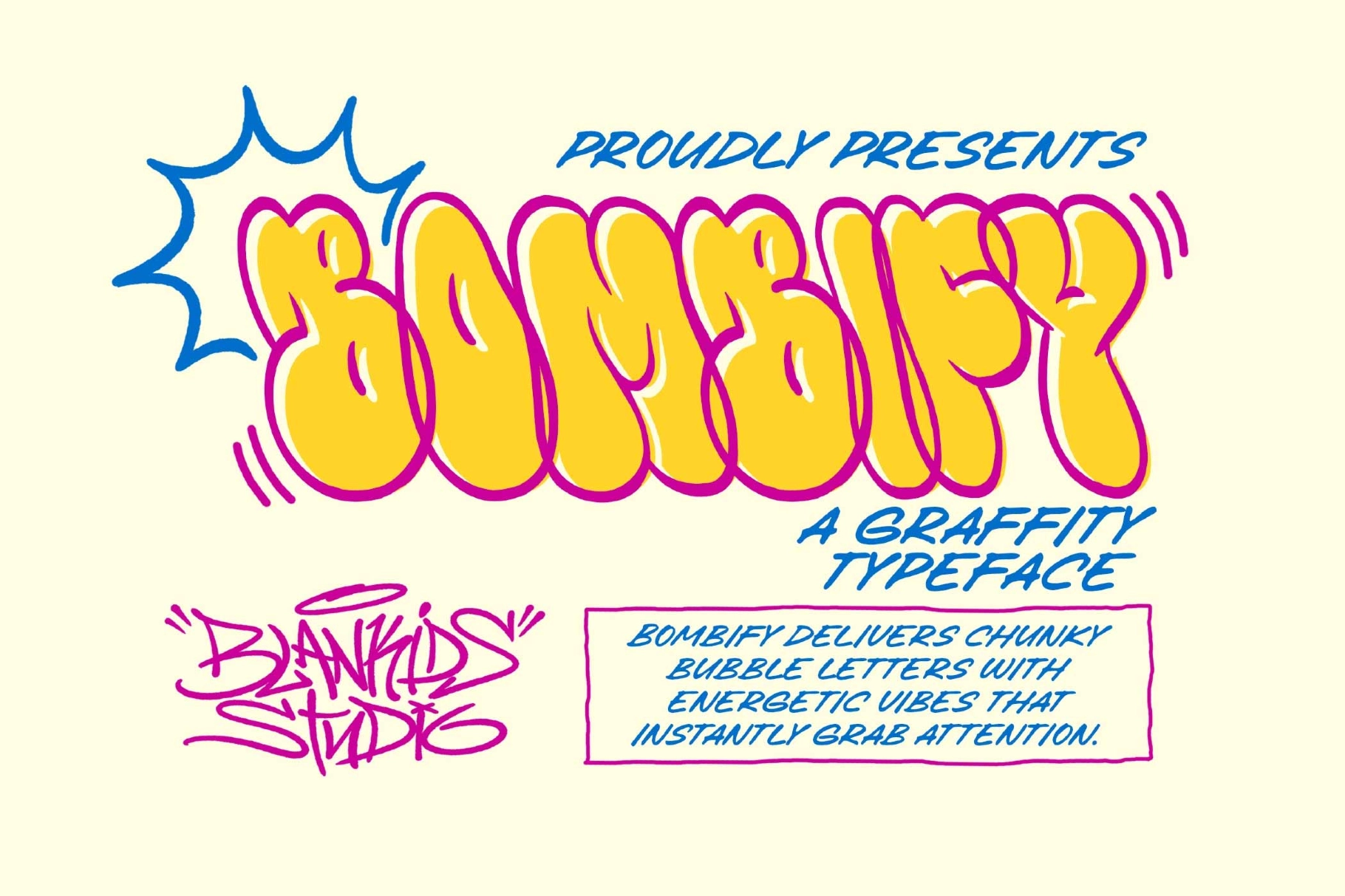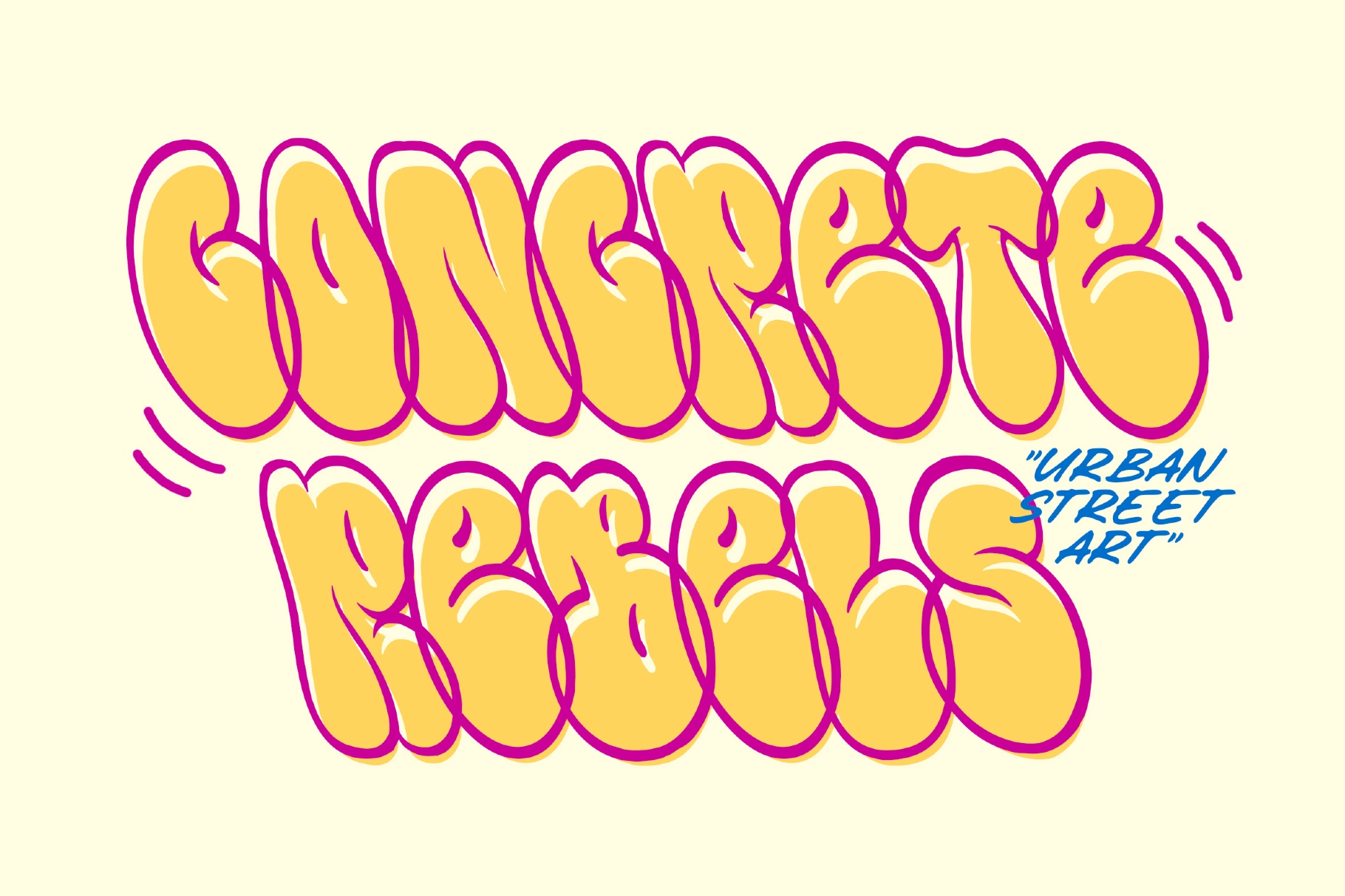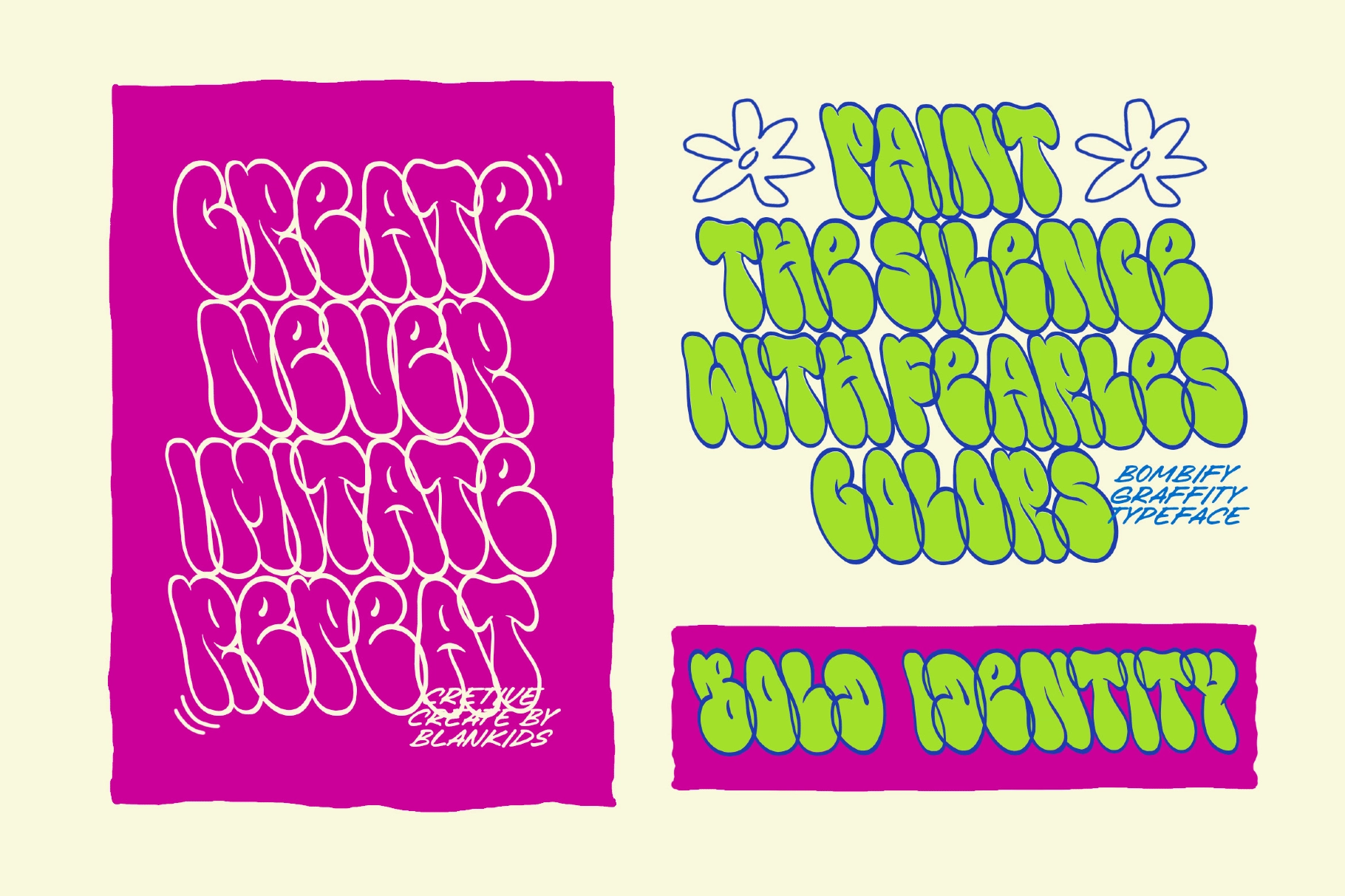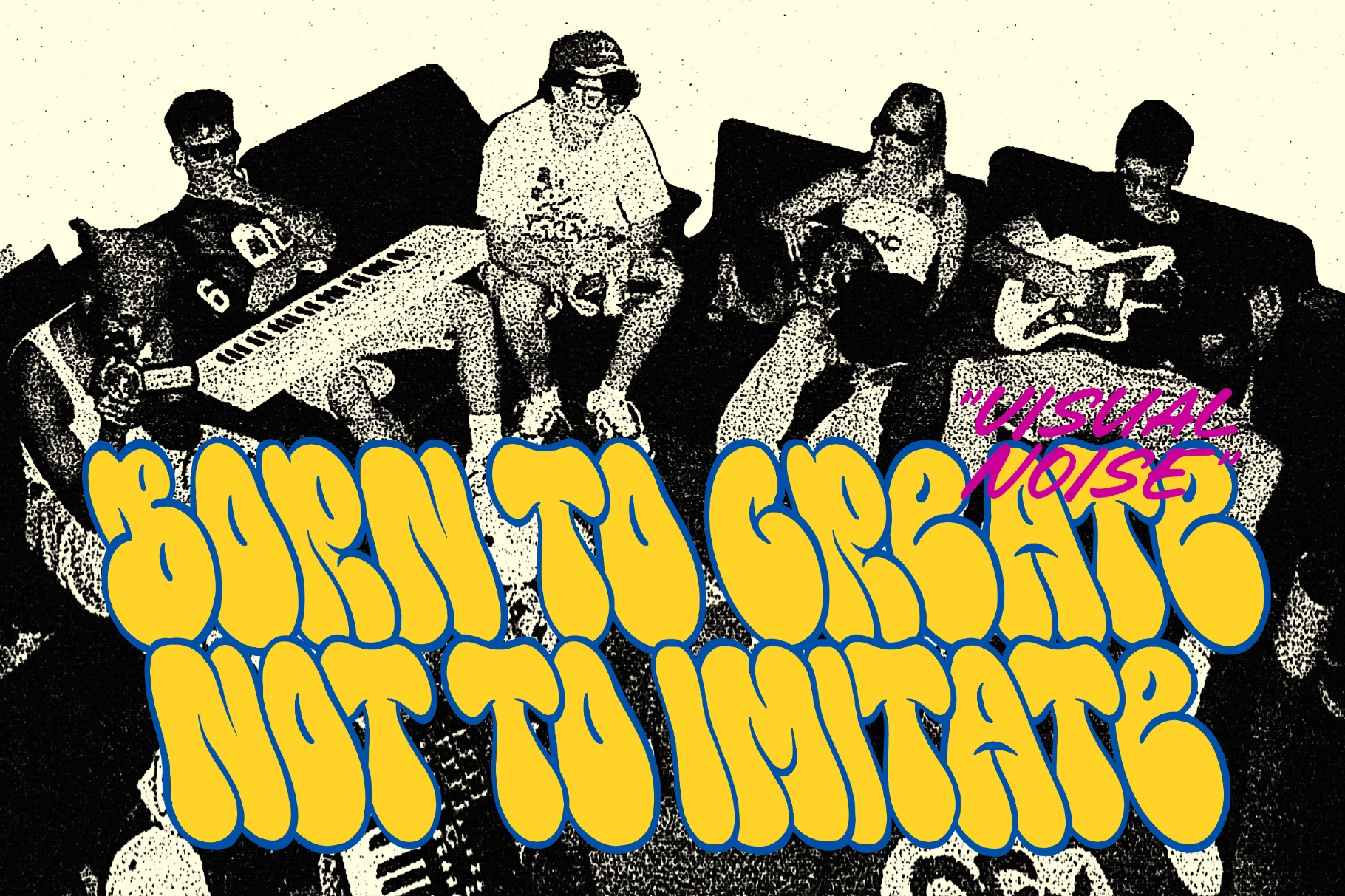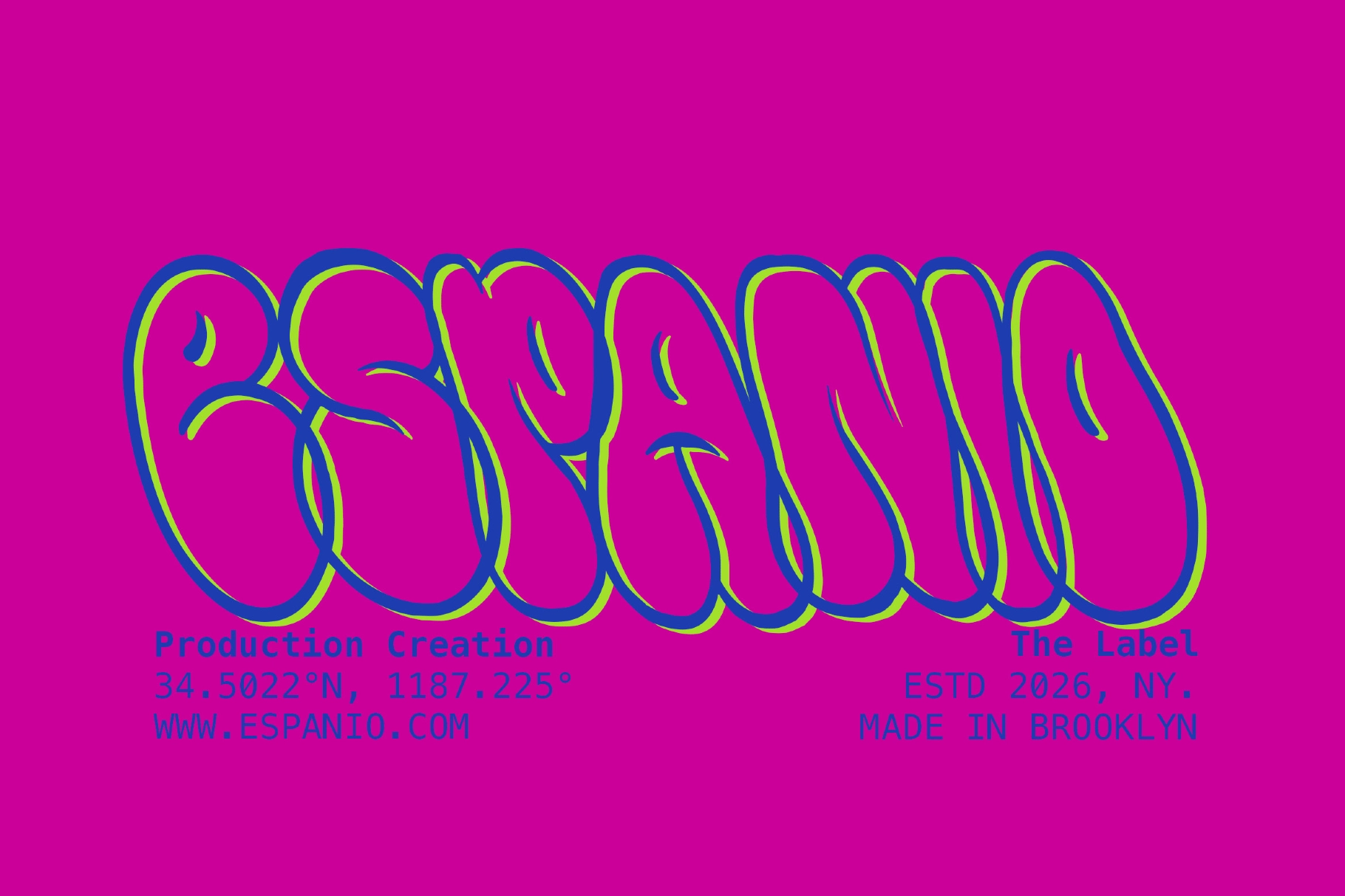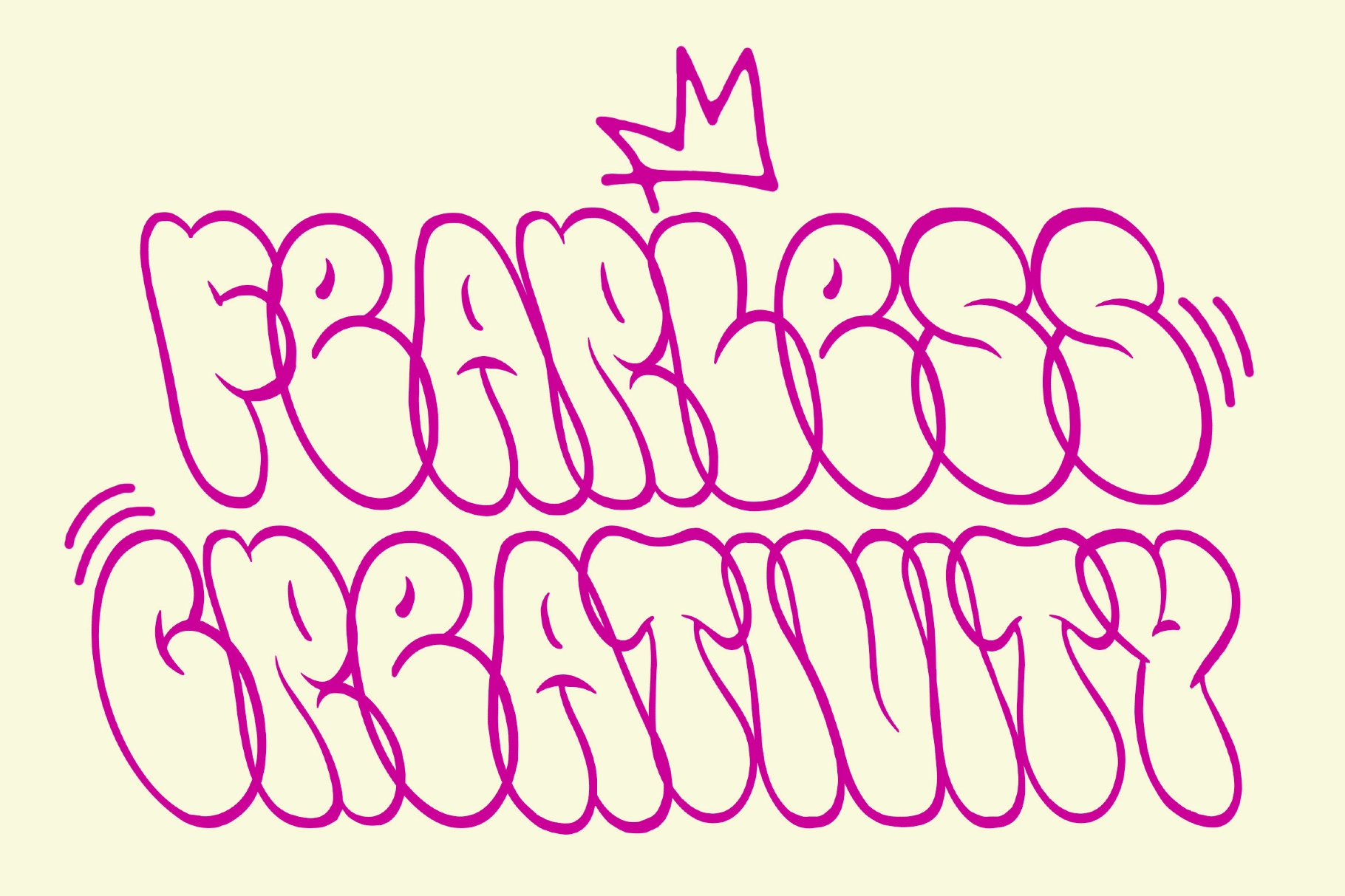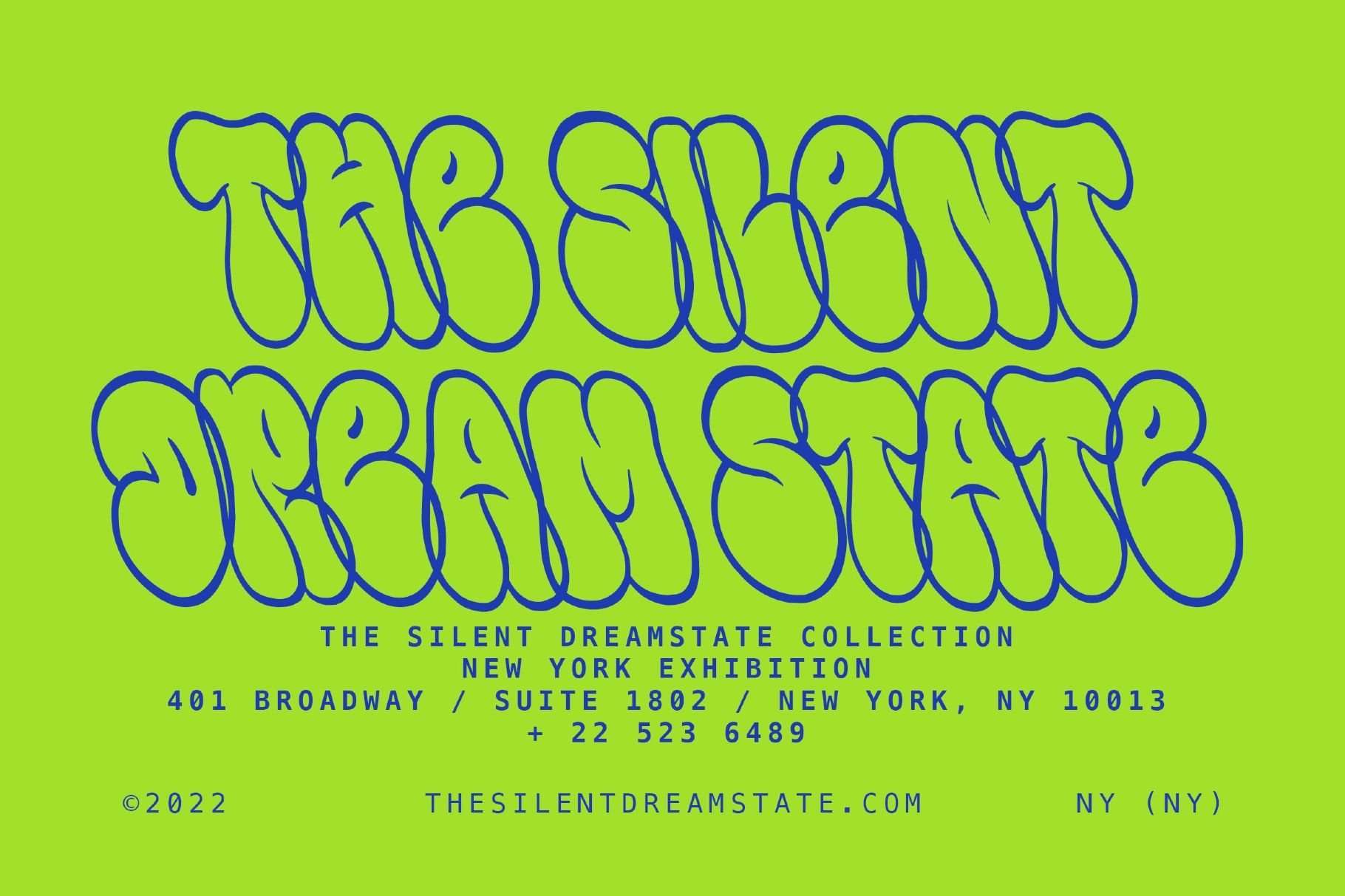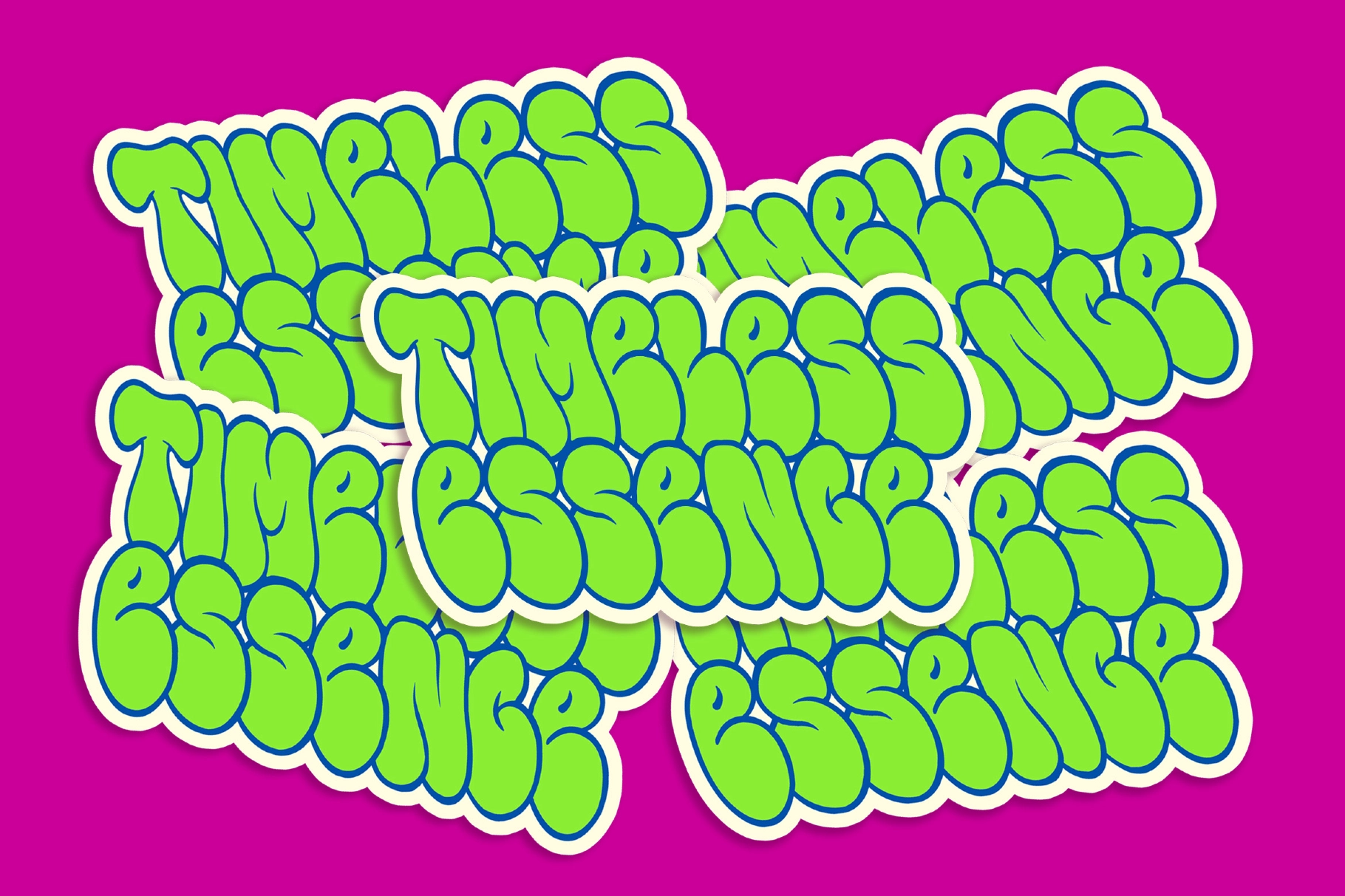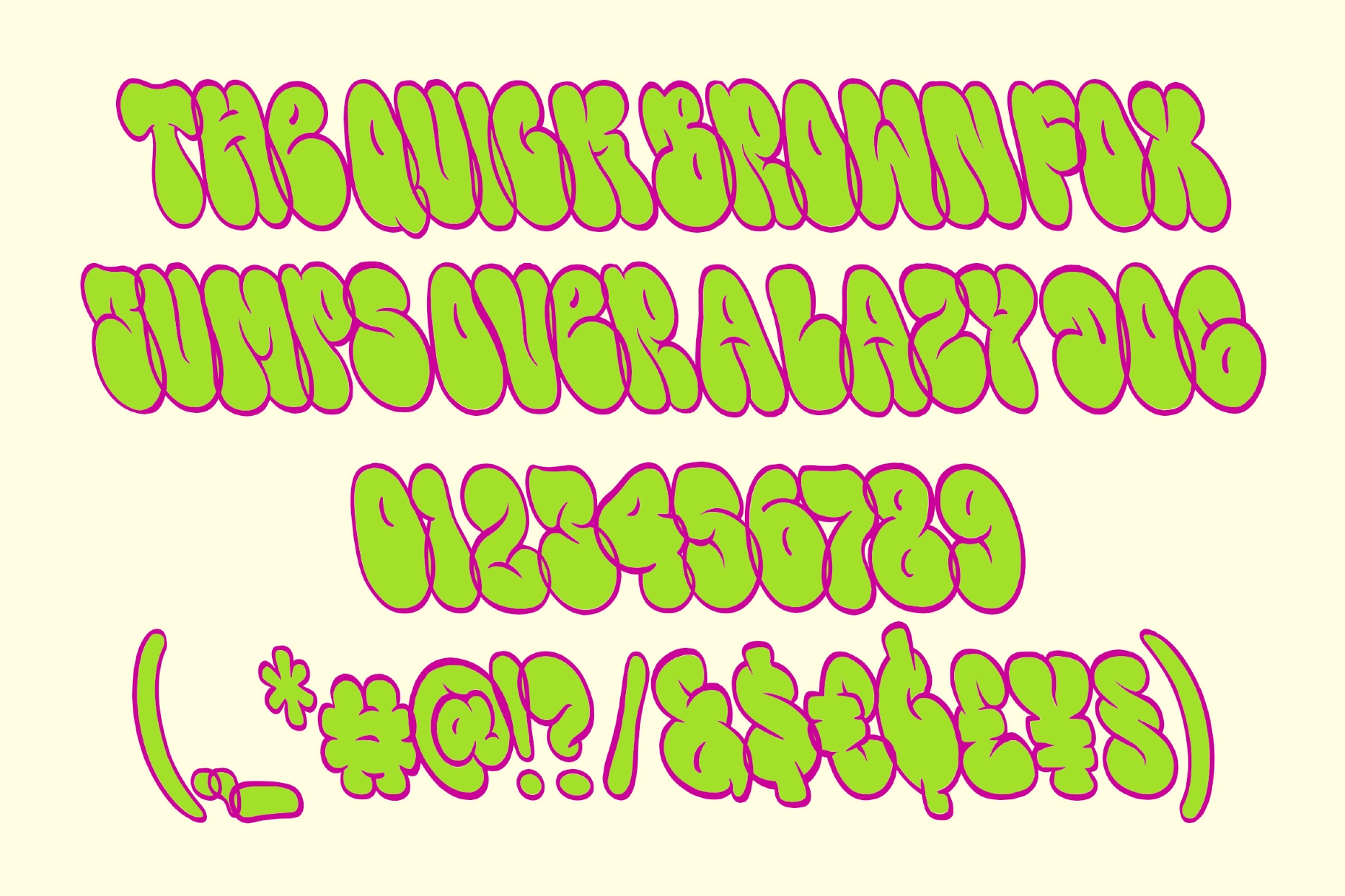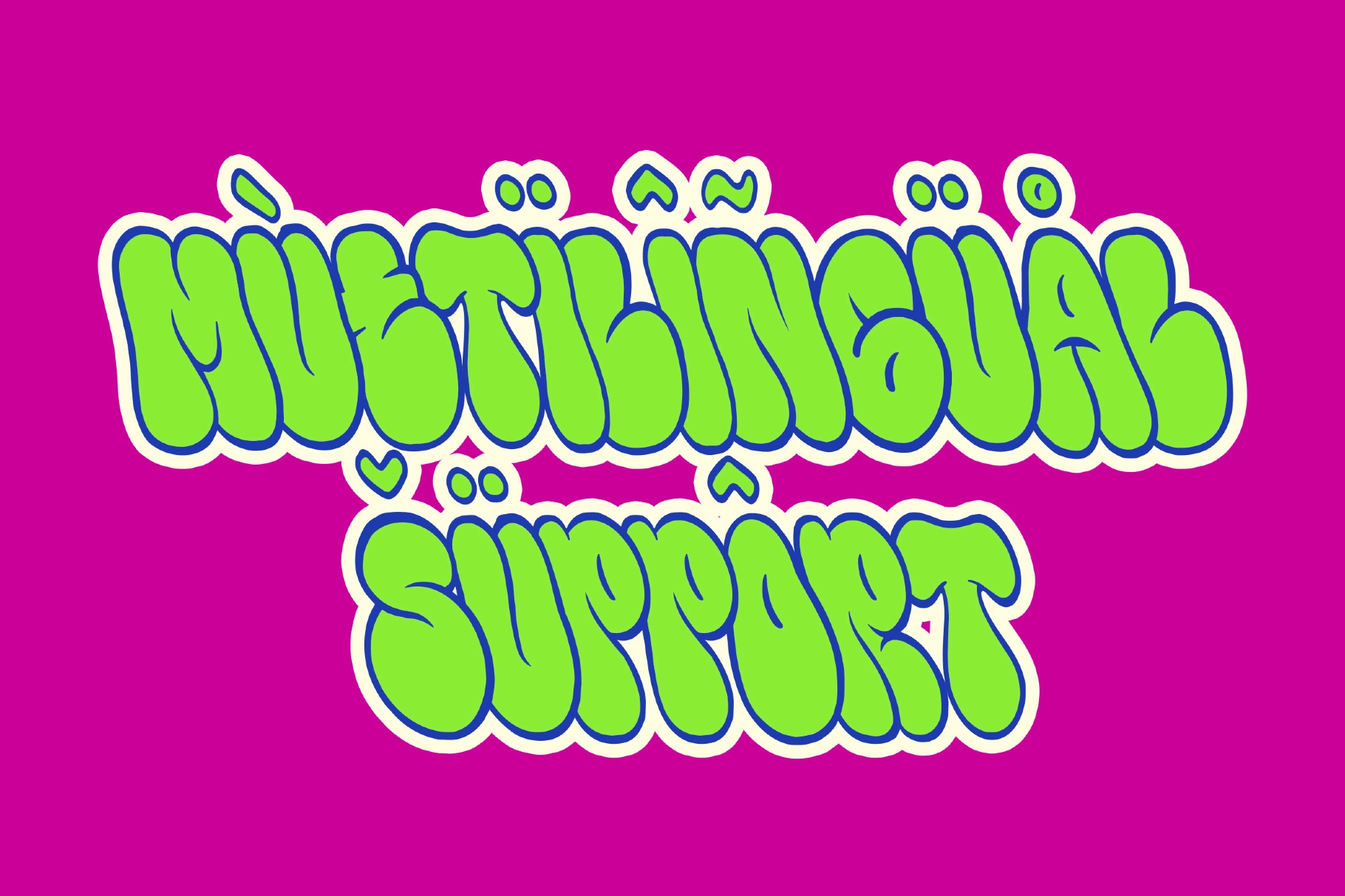
Bombify — Graffiti Bubble Font
Bombify blows every letter up into round, overlapping bubbles, the kind of chunky graffiti fill you'd expect on a subway car or a skate deck — Regular carries the solid fill, and a matching Outline style leaves just the contour for layering or coloring in by hand.
Use it for streetwear branding, sticker packs, album covers, YouTube thumbnails, poster headlines, and packaging that wants to read loud from across a room; stack the Outline version behind or on top of the Regular fill for a two-tone graffiti effect without extra software work.
• 2 styles: Regular and Outline;
• uppercase & lowercase;
• numerals, punctuation & symbols;
• multilingual support